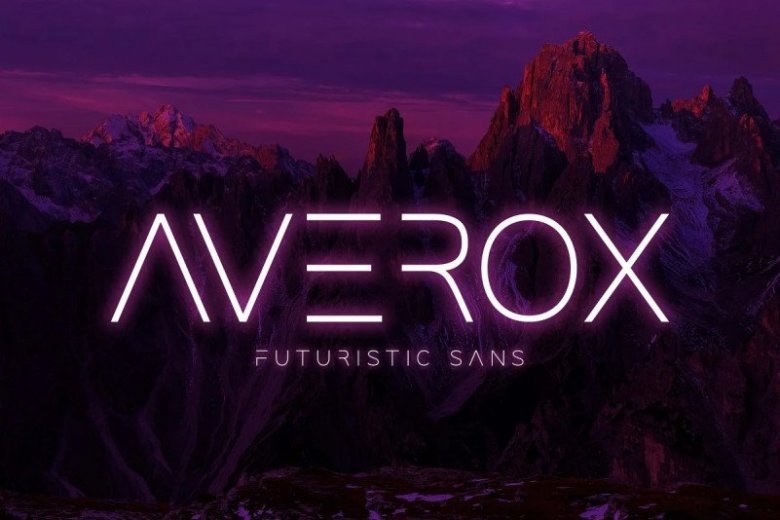
Averox Font
This typeface is a sci-fi tech modern font created by Almarkha Type with a stylish touch inspired by the famous minimalist logo and averox is perfect for the purposes of designing templates, brochures, videos, advertising branding, logos and more.